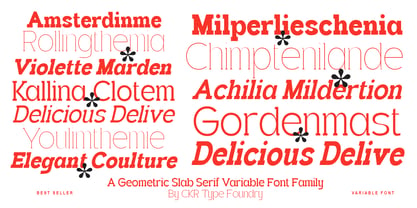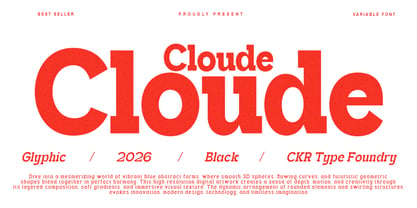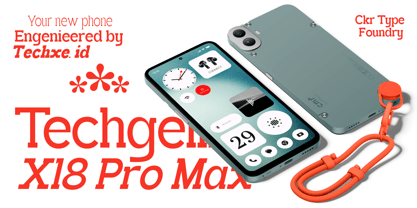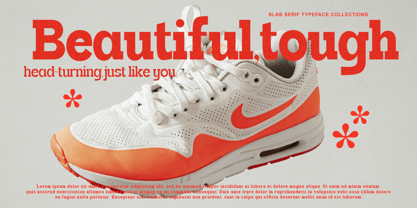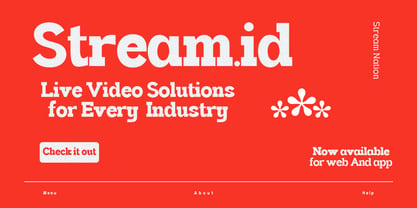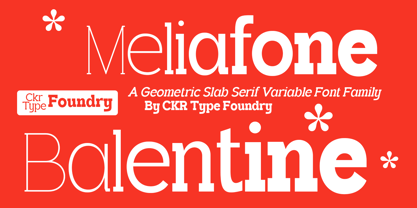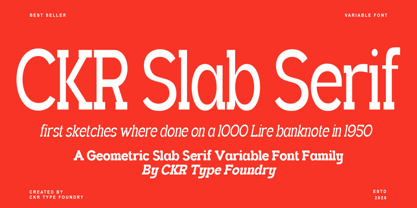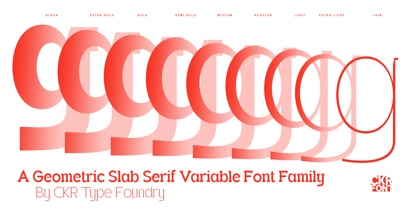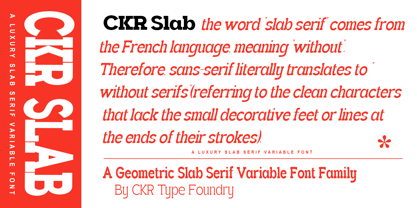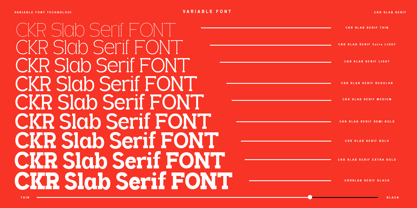
CKR Slab
CKR Slab is a versatile variable slab serif typeface that blends timeless elegance with modern flexibility. Designed for outstanding readability and refined aesthetics, it features carefully crafted true italics—not merely slanted romans, but independently drawn italic styles that deliver a more authentic and expressive typographic voice.
Built for a wide range of creative applications, CKR Slab performs beautifully in editorial design, branding, packaging, advertising, user interfaces, web design, and impactful display typography. Its sturdy slab serifs combined with balanced proportions create a confident yet sophisticated appearance that adapts effortlessly to both classic and contemporary projects.
With 145 font styles, including an extensive variable font system, CKR Slab gives designers exceptional creative freedom. From delicate text settings to bold headlines, its broad weight and style range allows precise typographic control while maintaining consistency across every design.
Whether you're creating a premium brand identity, publishing editorial content, or crafting compelling visual communications, CKR Slab offers the perfect balance of tradition, functionality, and modern versatility—making it a reliable choice for designers who demand both character and performance.